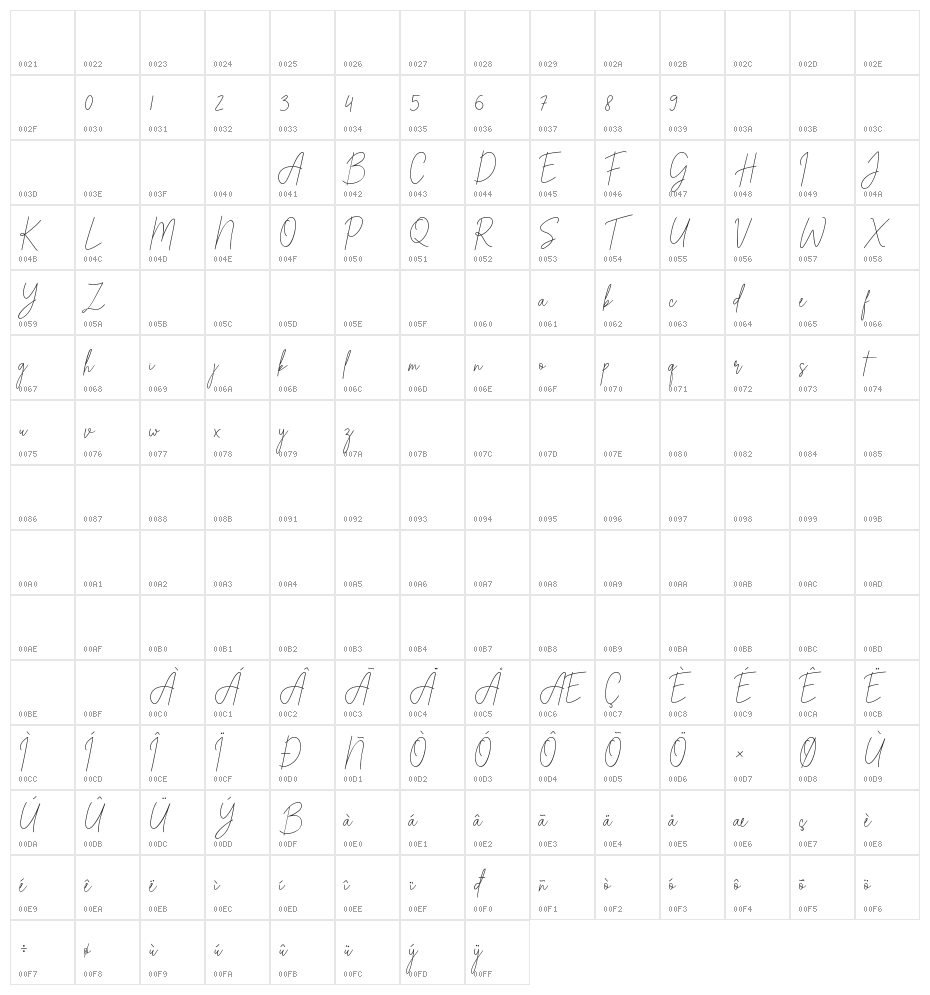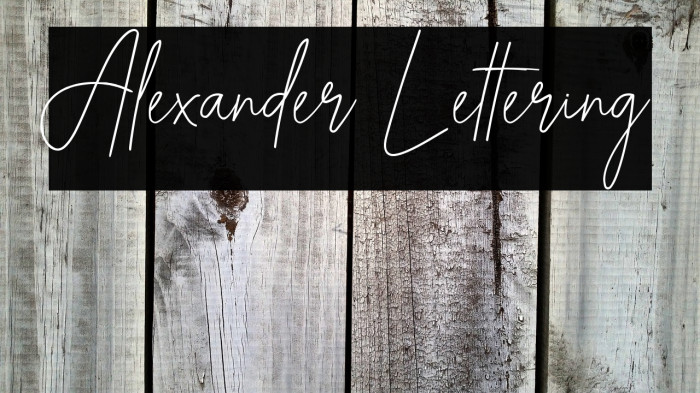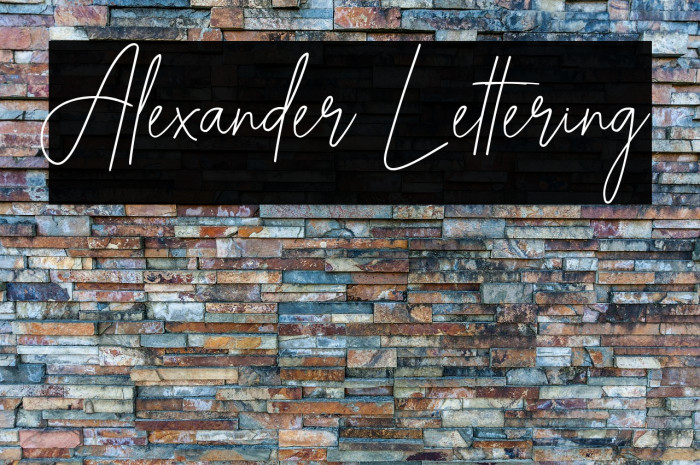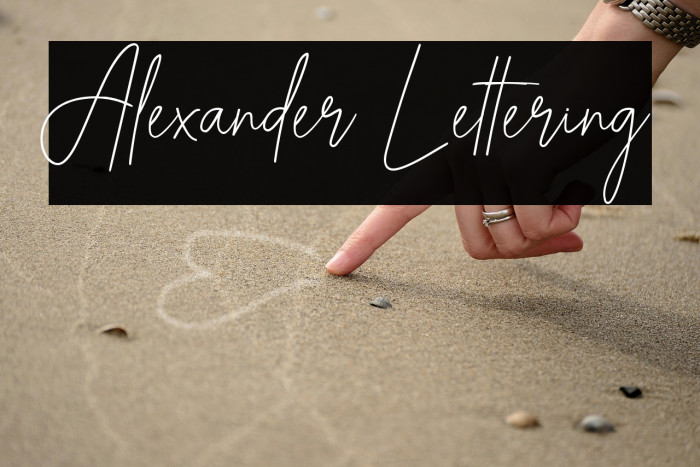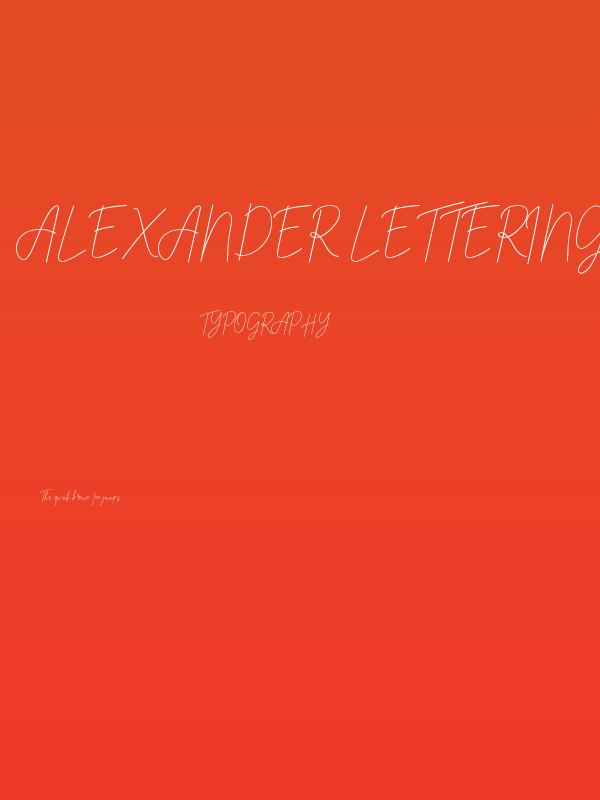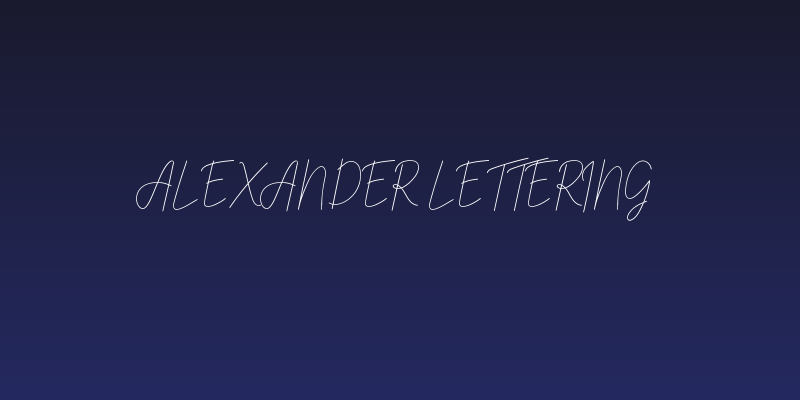
Alexander Lettering Font
Alexander Lettering Description
This font features an elegant and flowing script style, characterized by its thin, delicate strokes and graceful curves. The uppercase letters exhibit a tall and narrow form, with a slight slant that adds a sense of movement and fluidity. The lowercase letters maintain a consistent style, with smooth connections between characters that enhance the handwritten appearance. The numerals are similarly styled, offering a cohesive look across all characters. This font's overall aesthetic is refined and sophisticated, making it suitable for projects that require a touch of elegance and personal flair.
| Overall Style | Elegant, Handwritten |
| Proposed Projects | Ideal for wedding invitations, personal branding, elegant stationery, and artistic projects. |